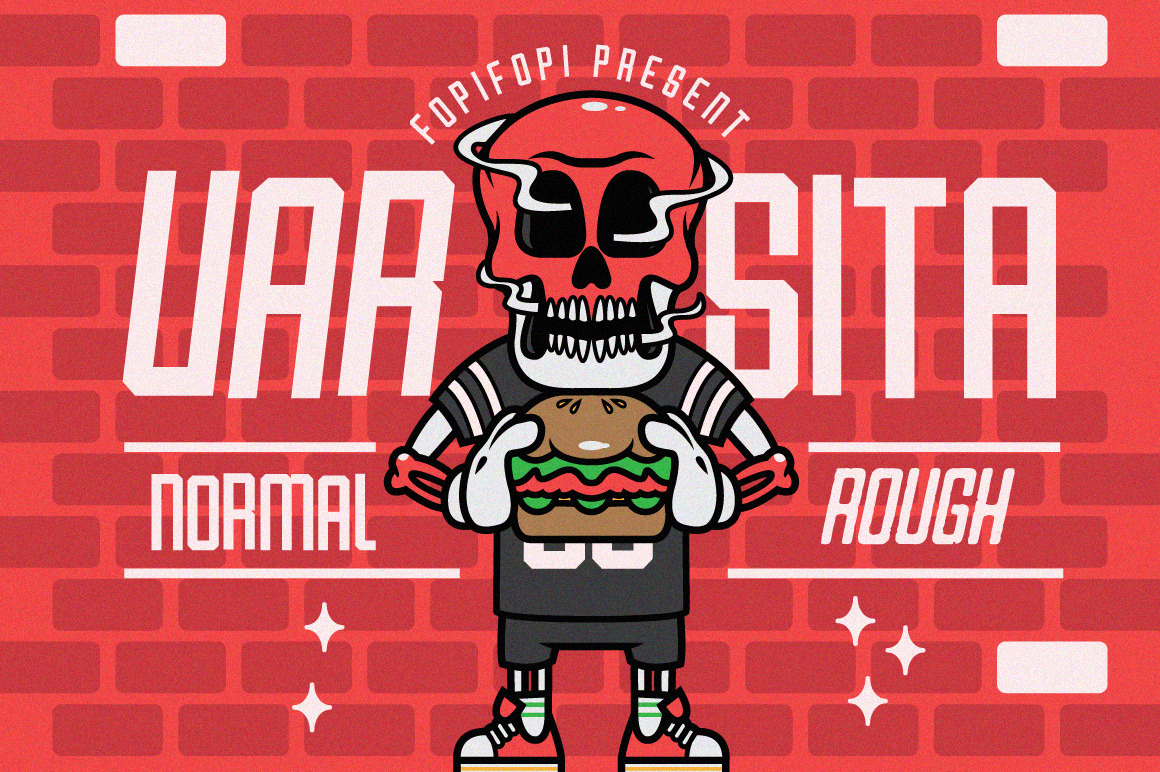
Varsita is a display font that gives you bold typography with four different styles that make up the family, a regular, italic, rough and rough italic. Varsita font is an adaptation of varsity and college styles. Varsita font perfectly fit for your apparel designs,merch designs, poster, logo and all of your handcrafted projects presentations. Sky is your limit :))